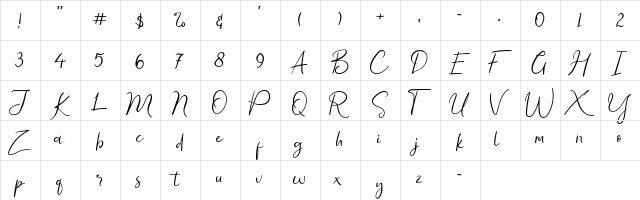
The Rottary Regular
| Designer | MJB Letters 2019 |
Design Context for The Rottary Typeface
The Rottary is a composed and adaptable typeface that performs quietly and consistently across a wide range of design contexts.